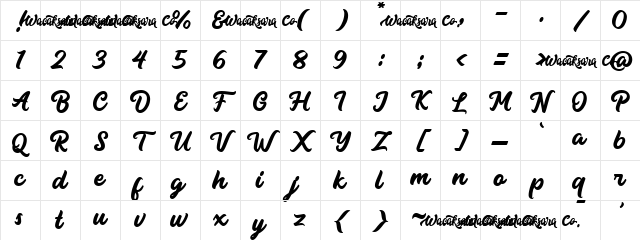
Sunkids Script Regular Free Font
Sunkids  Script Regular
Foundry: Wacaksara Co
Designer: Aliv Pandu, Hamam Jauhari,
Complete Sunkids Script Regular glyph index. Displaying only characters natively supported by Sunkids Script Regular font.
Design Context for Sunkids Script
Sunkids Script has an approachable, lighthearted character - its loose, expressive forms are well-suited to children's content, casual branding, and fun-first design.
Font Pairing: Pairs well with a rounded or humanist sans for body copy, maintaining the friendly tone without relying on Sunkids Script to carry extended reading.
Pro Tip: Use Sunkids Script at larger display sizes where its expressive character can land. Pair with a clean, simple sans for body copy to maintain readability.